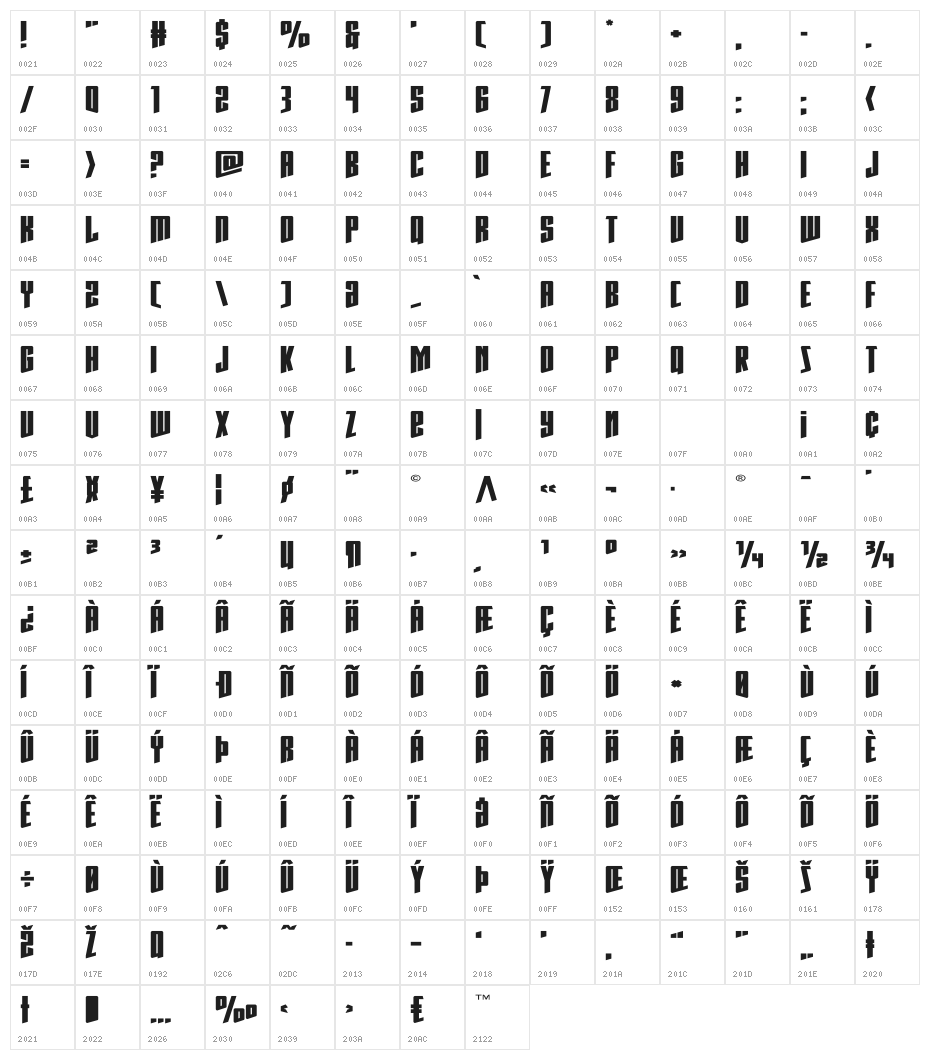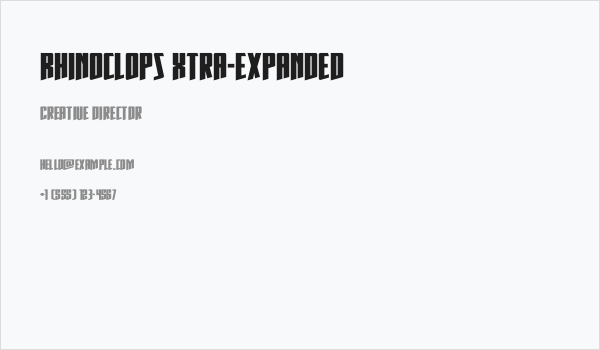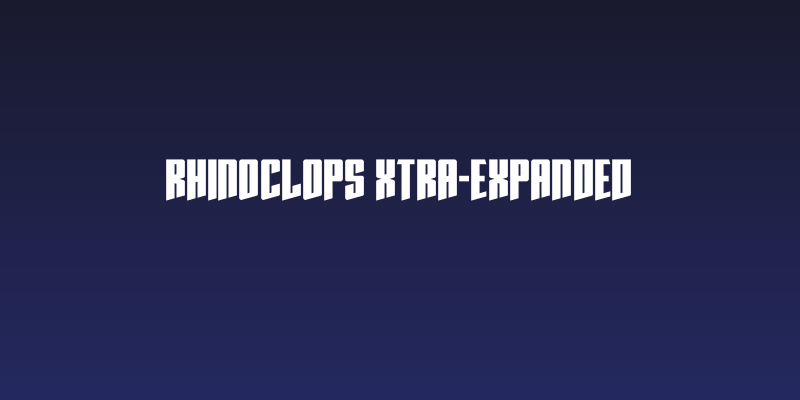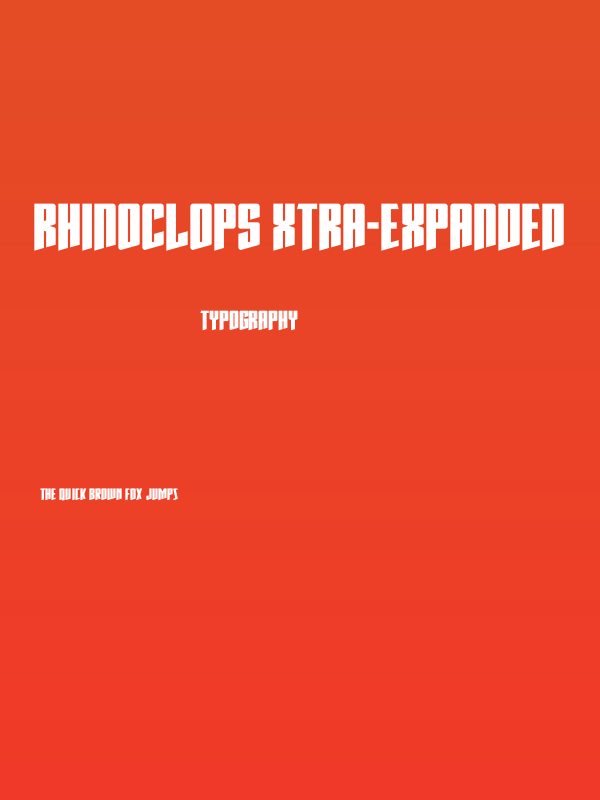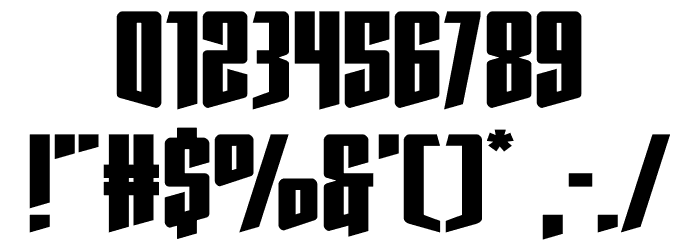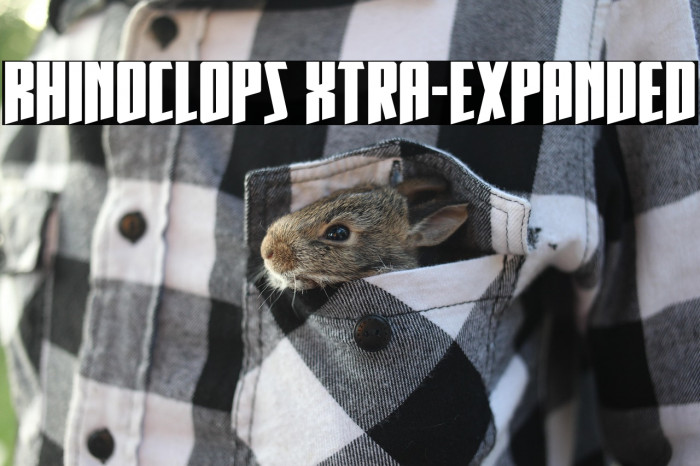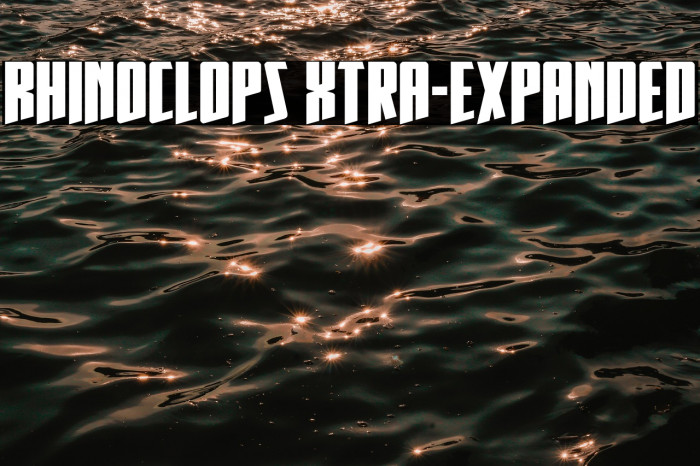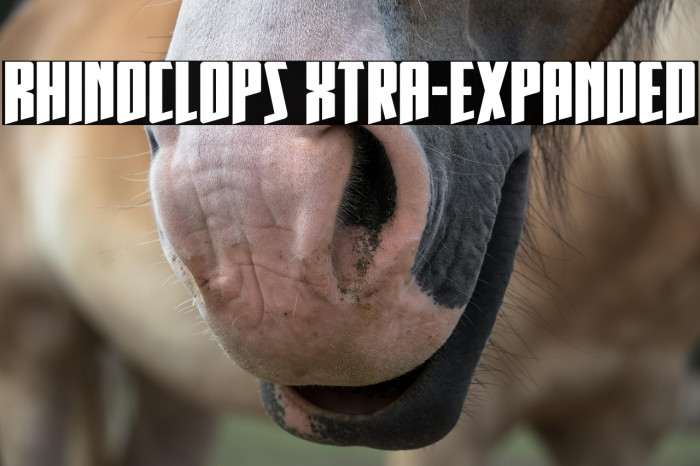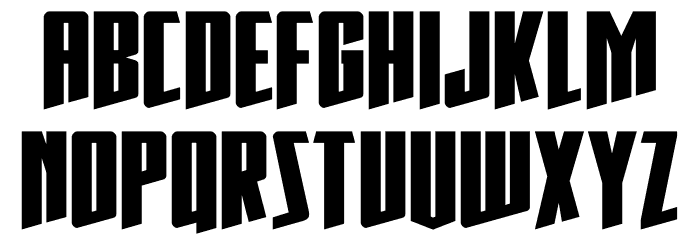
Rhinoclops Xtra-Expanded Font
Rhinoclops Xtra-Expanded Description
This font features a bold and dynamic design with a distinctly modern and geometric style. The characters are sharply angled and have a strong presence, making them ideal for attention-grabbing headlines or logos. The uppercase letters are particularly striking, with a unique slant that adds a sense of motion and energy. The numbers and special characters maintain the same boldness and angularity, ensuring consistency across all text elements. The overall appearance is powerful and assertive, suitable for projects that require a strong visual impact.